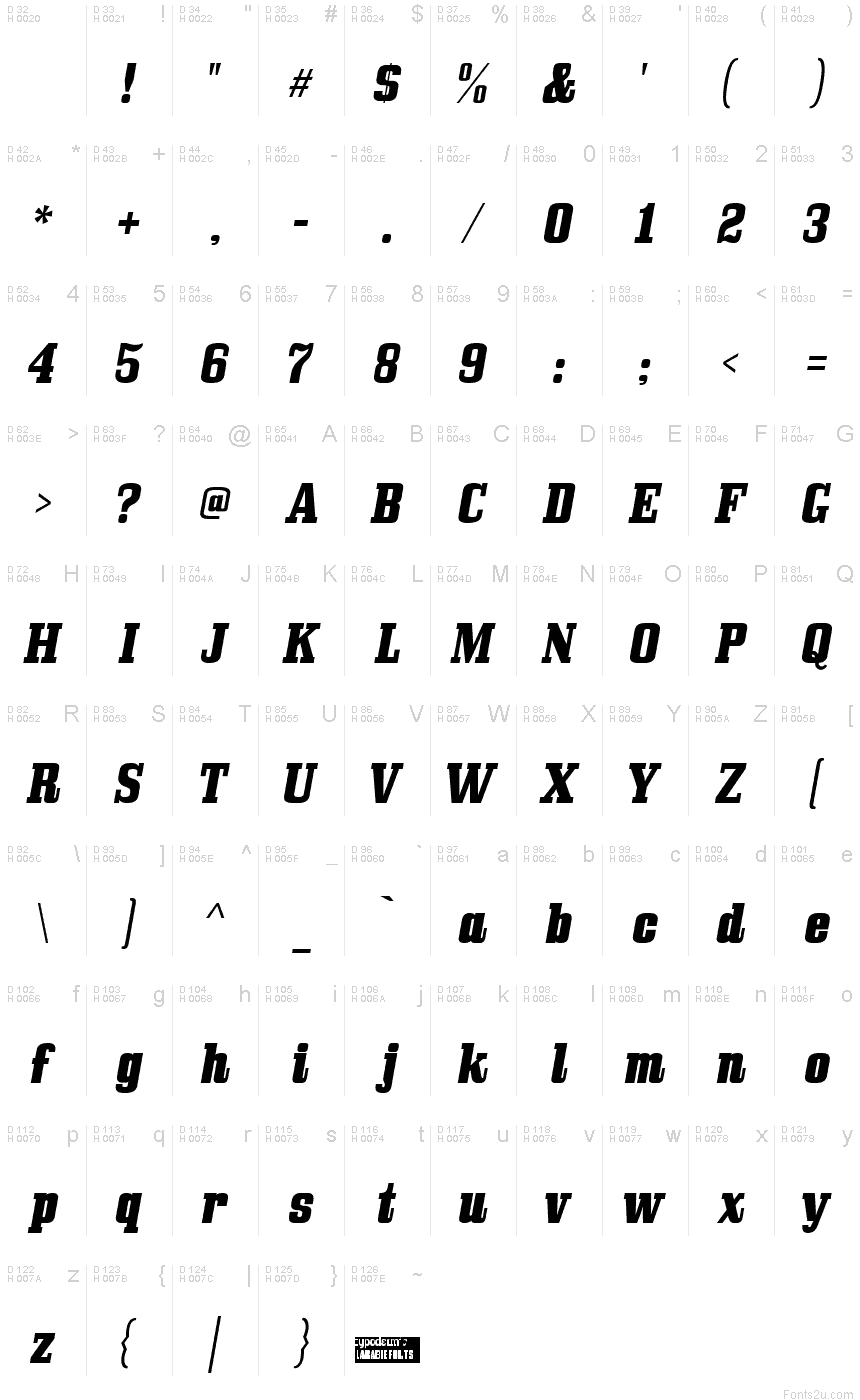
Bullpen Italic
Bullpen Italic font by Ray Larabie is a free retro display typeface that charges off the baseline with thick, muscular strokes and a hard-driving slant. Its condensed shapes, squared curves, and tight spacing create a sense of speed and impact, like lettering painted across a stadium wall or racing stripe. Every word feels in motion, with a dense, inky texture that grabs attention from a distance.
Using Bullpen Italic, headlines instantly feel like team names, league logos, or bold sports slogans. This free font shines on jerseys, posters, scoreboards, esports branding, flyers, and energetic social graphics where momentum matters. For a clean, readable system, pair Bullpen from the same family or another neutral sans for body text and let Bullpen Italic handle the big, loud moments.